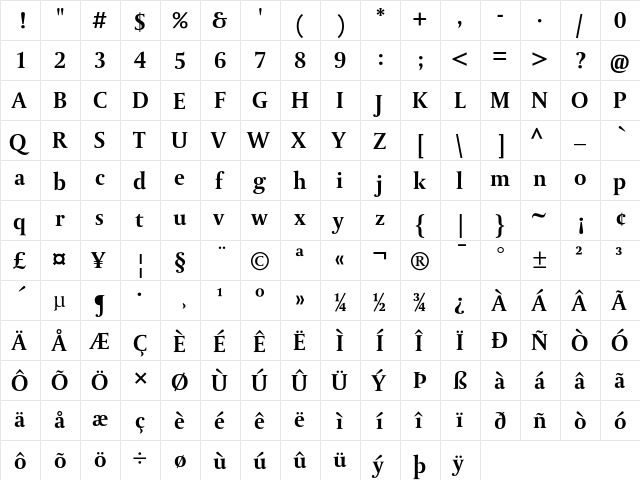
DTLParadoxT Bold
Design Context for DTLParadoxT Typeface
DTLParadoxT offers clean, dependable letterforms without strong stylistic allegiance, making it a practical choice for designers who need flexibility. Its bold stroke weight gives it real presence on the page.